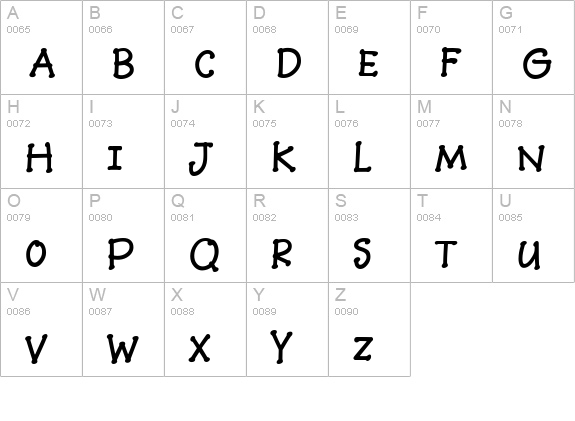
BaaBookHmkBold Font Details
BaaBookHmkBold is a stunning and eye-catching font that will surely make your designs stand out. With its bold and commanding presence, this font is perfect for headlines, logos, posters, and any other design project that requires a strong and impactful typography. What sets BaaBookHmkBold apart is not just its striking appearance, but also its versatility. This font is designed to be legible even at smaller sizes, making it ideal for both print and digital media. Whether you are creating a magazine layout or a website banner, BaaBookHmkBold will ensure that your message is communicated with clarity and style. But what truly sets BaaBookHmkBold apart is that it is freely available to download at FontsMarket.com. Yes, you read that right! This amazing font can be yours for absolutely no cost. FontsMarket.com is proud to offer this font as part of their extensive collection of high-quality fonts that are available for free. So why wait? Download BaaBookHmkBold today and unleash your creativity with this powerful font. Whether you are a professional designer or a hobbyist, this font will elevate your designs to new heights. Don't miss out on this incredible opportunity to get a top-notch font for free. Visit FontsMarket.com now and let BaaBookHmkBold be the secret weapon in your design arsenal.